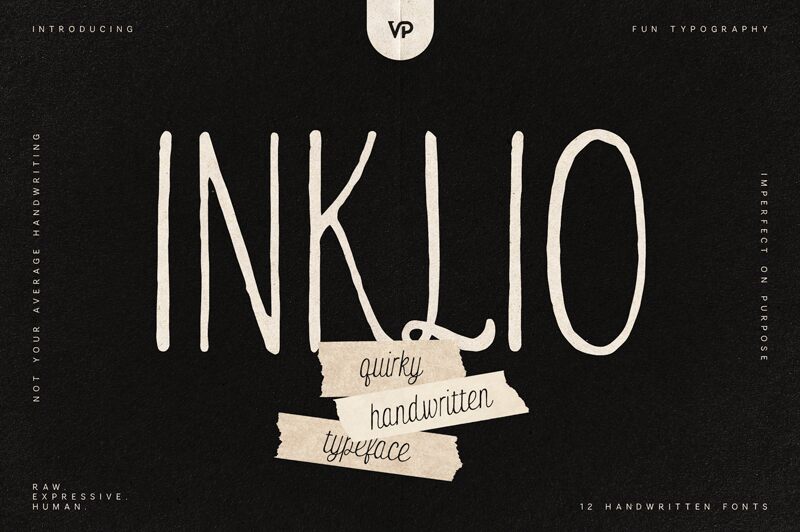
Inklio font is a creative typography product crafted by VPcreativeshop. It is a free script font with a modern handwritten style, designed with the talent of an artist’s brush. The organic and minimalist design of this font makes it go perfect with other natural elements and materials. Its letter contrast underlines each stroke, while the quirky imperfection adds a unique quality to the font file as a whole.
Imagine your brand name written in an authentic straight style with simplicity and originality. Environmentally-focused printed banners, brochures, and signs are obvious use cases for Inklio. The font is suitable for businesses within the creative, beauty, arts & crafts, and fashion industries. Wedding designs and casual events can both have this natural hand-lettered touch as their main logo or as a small body of text.